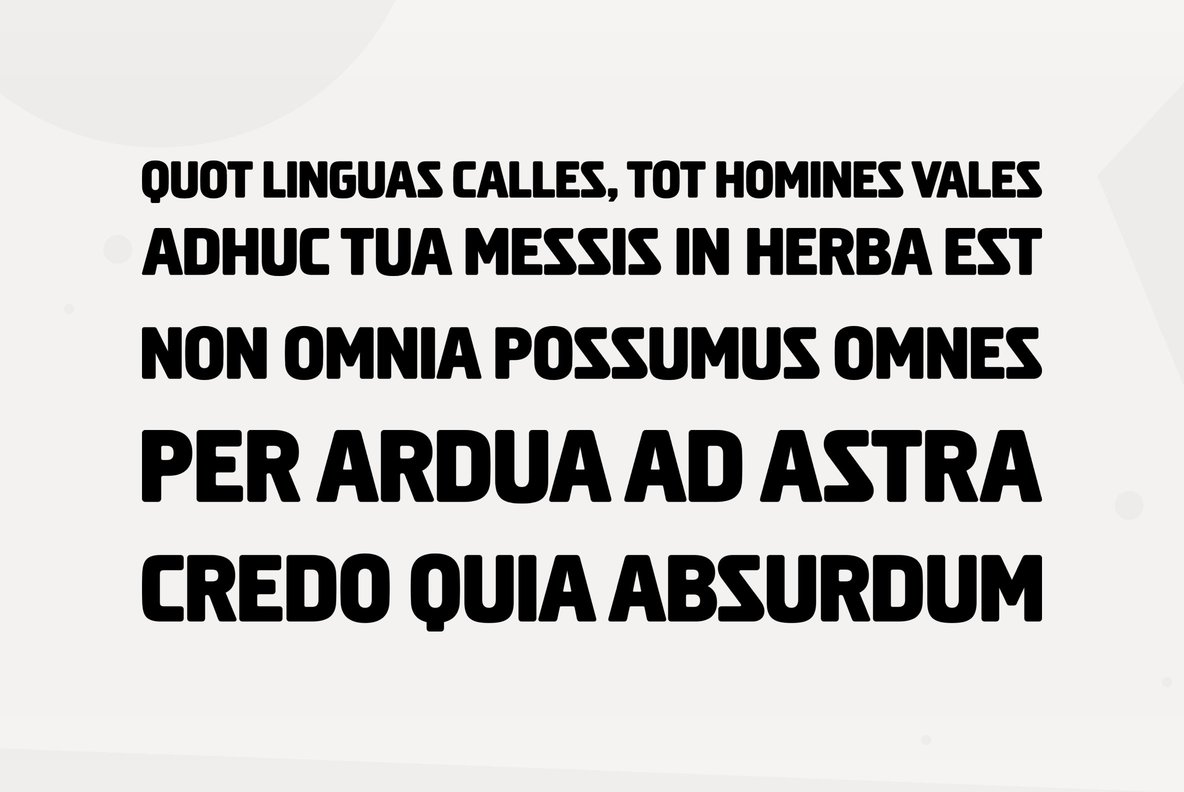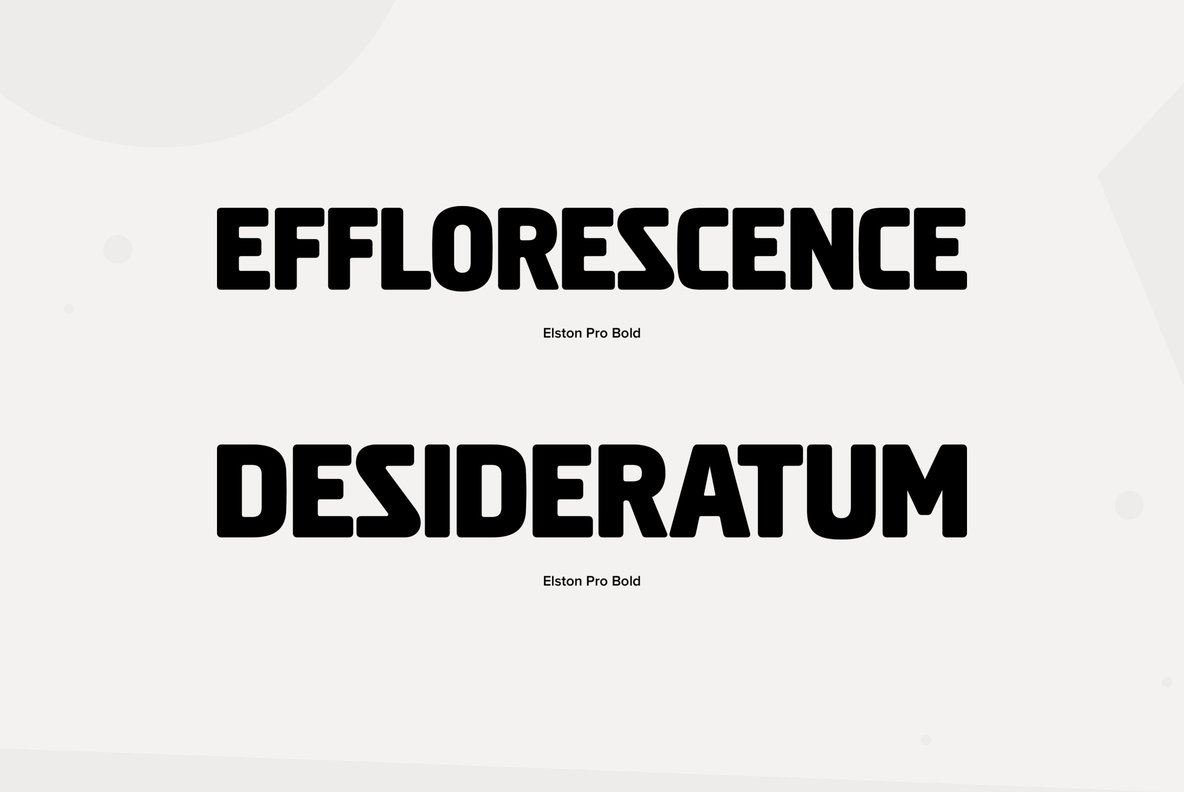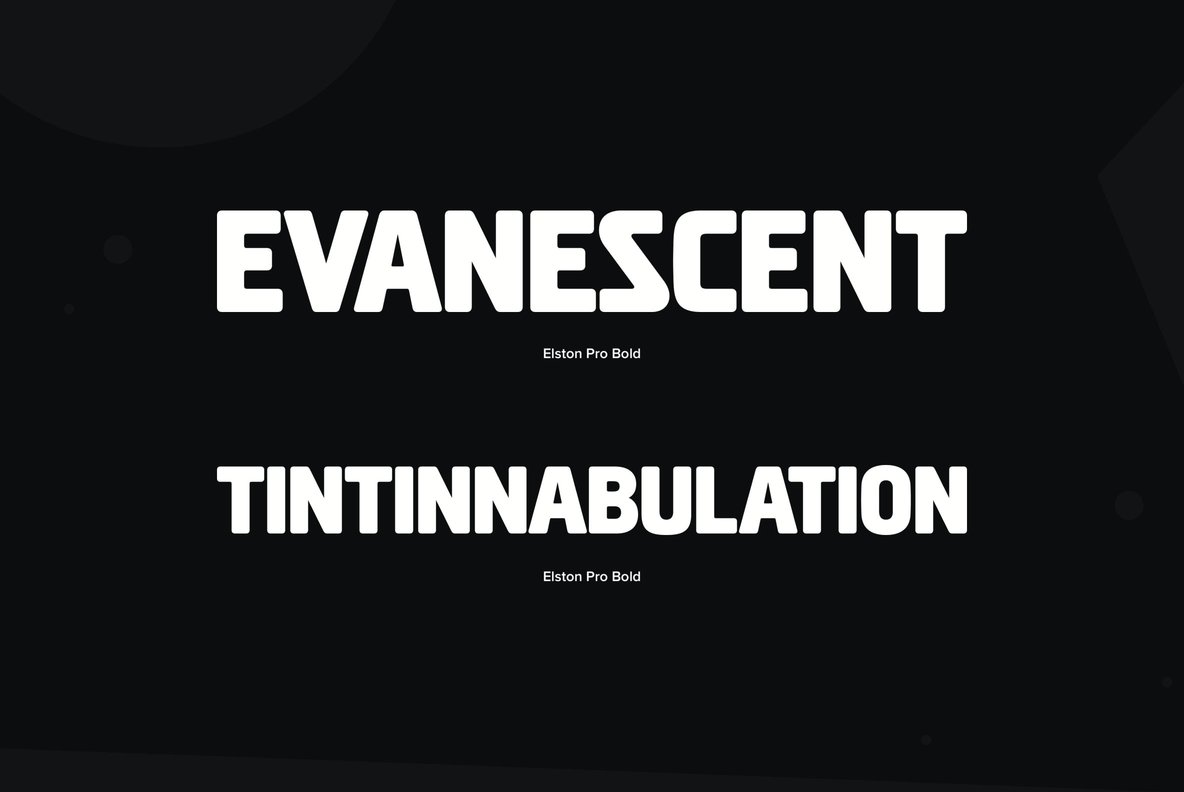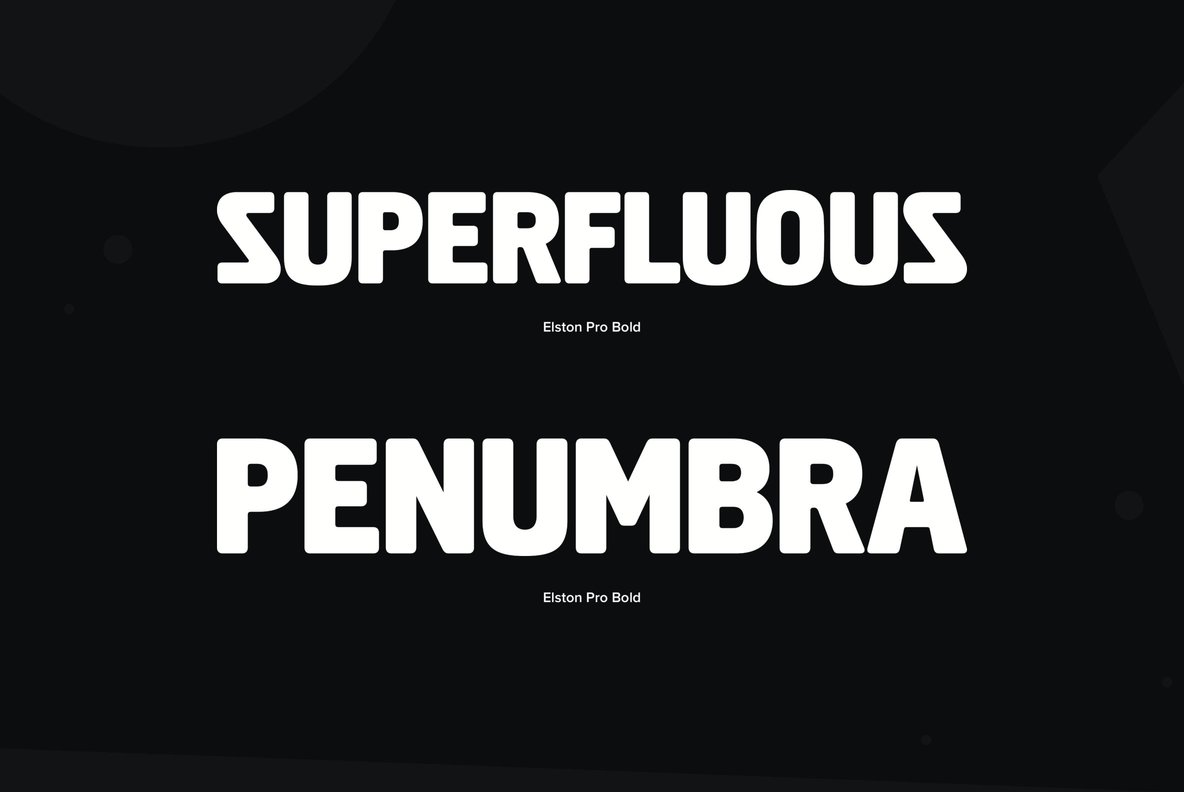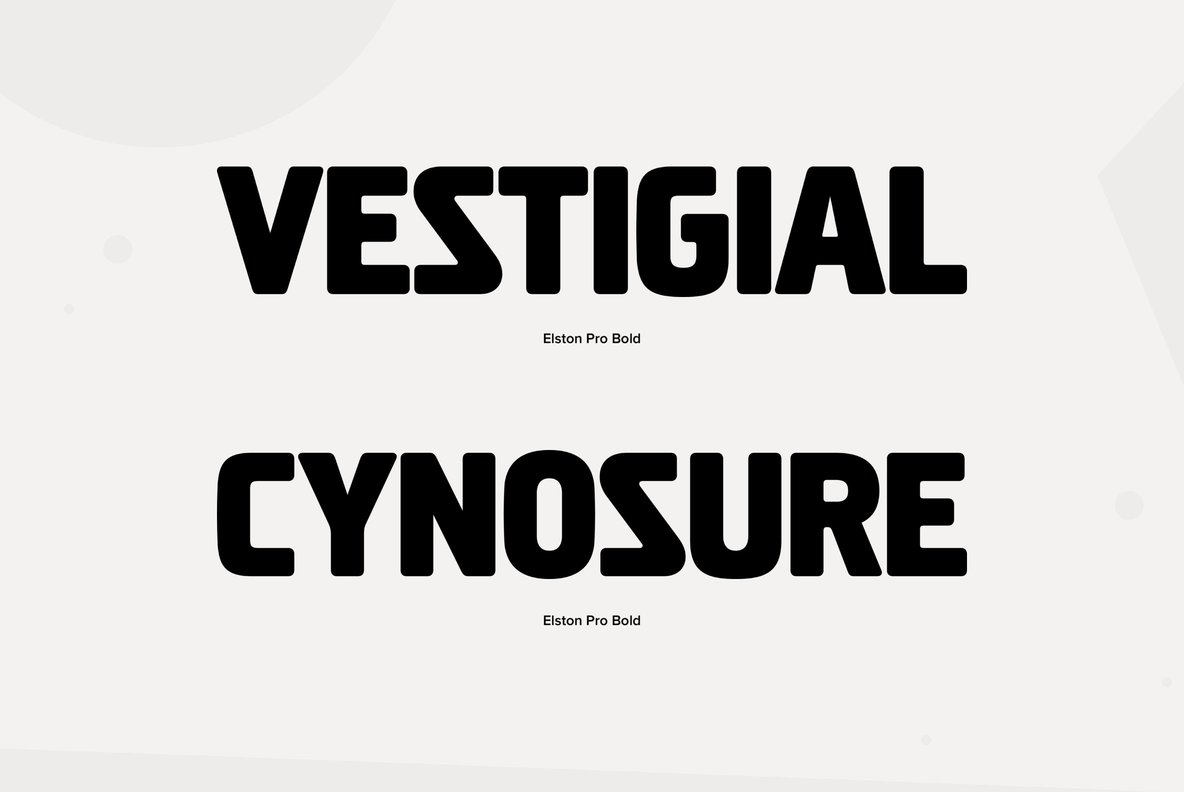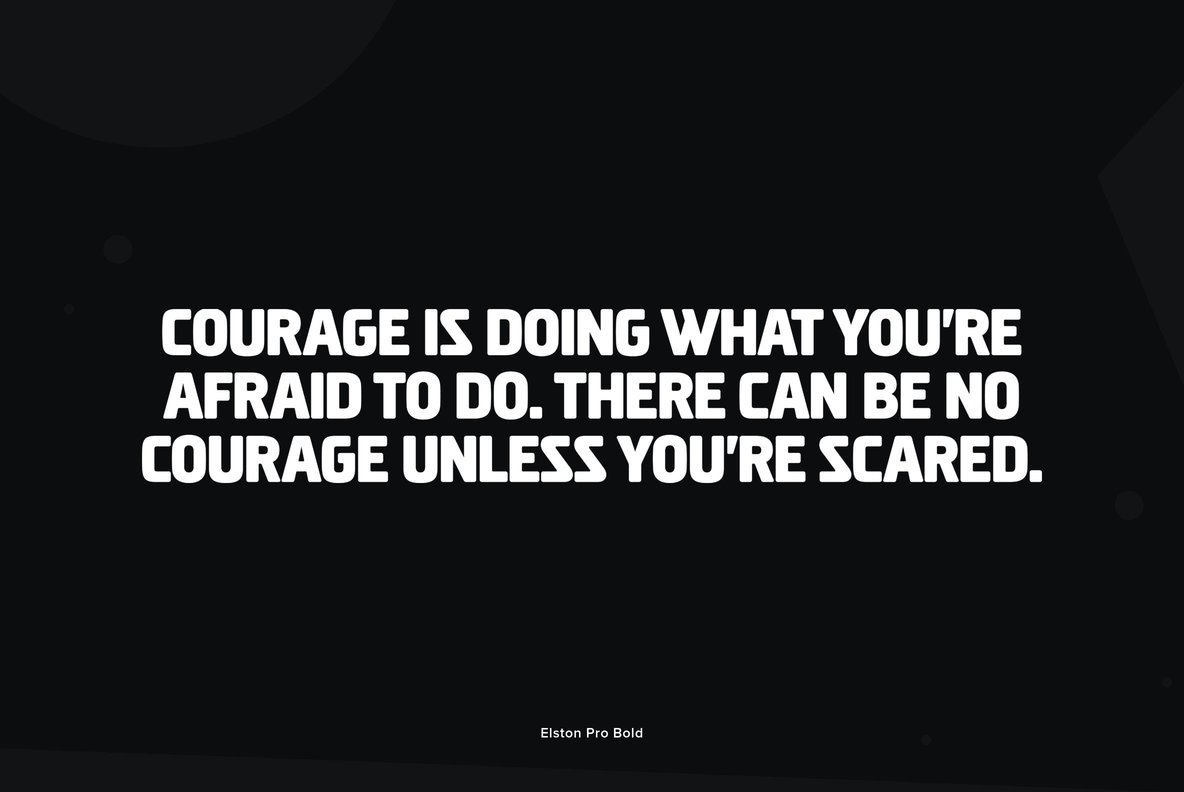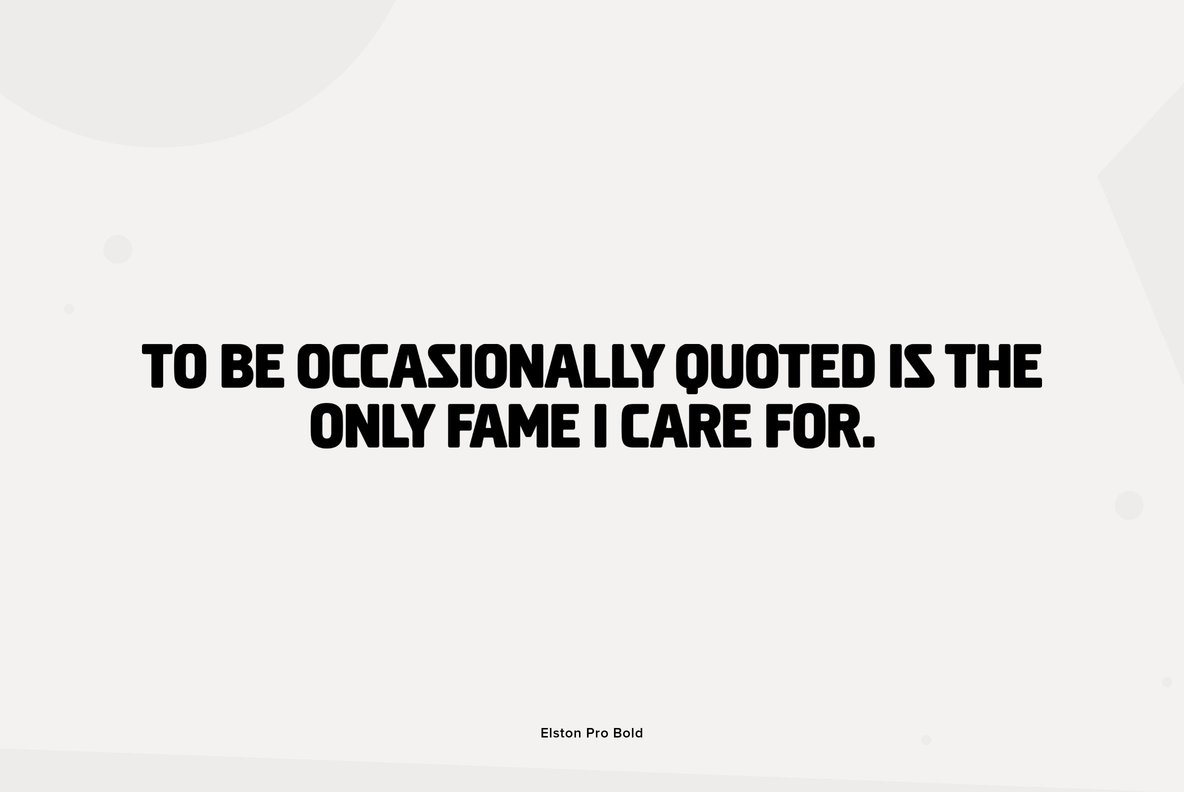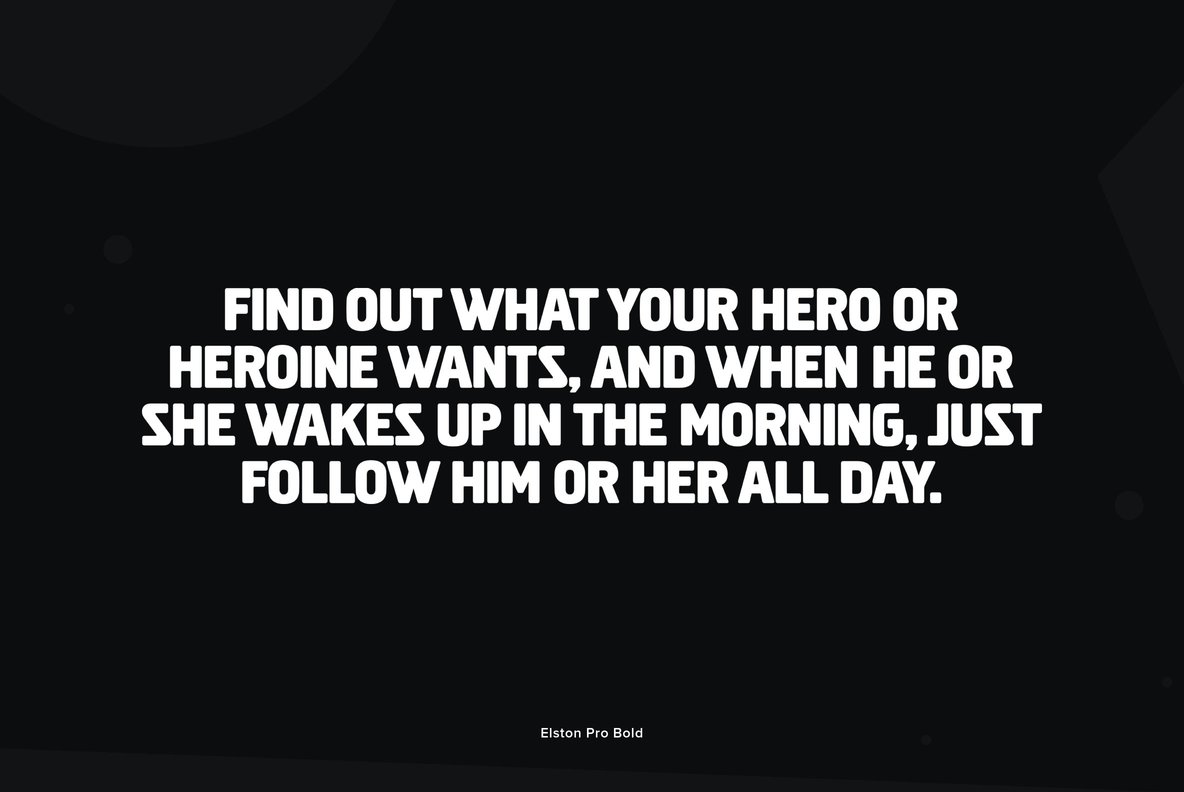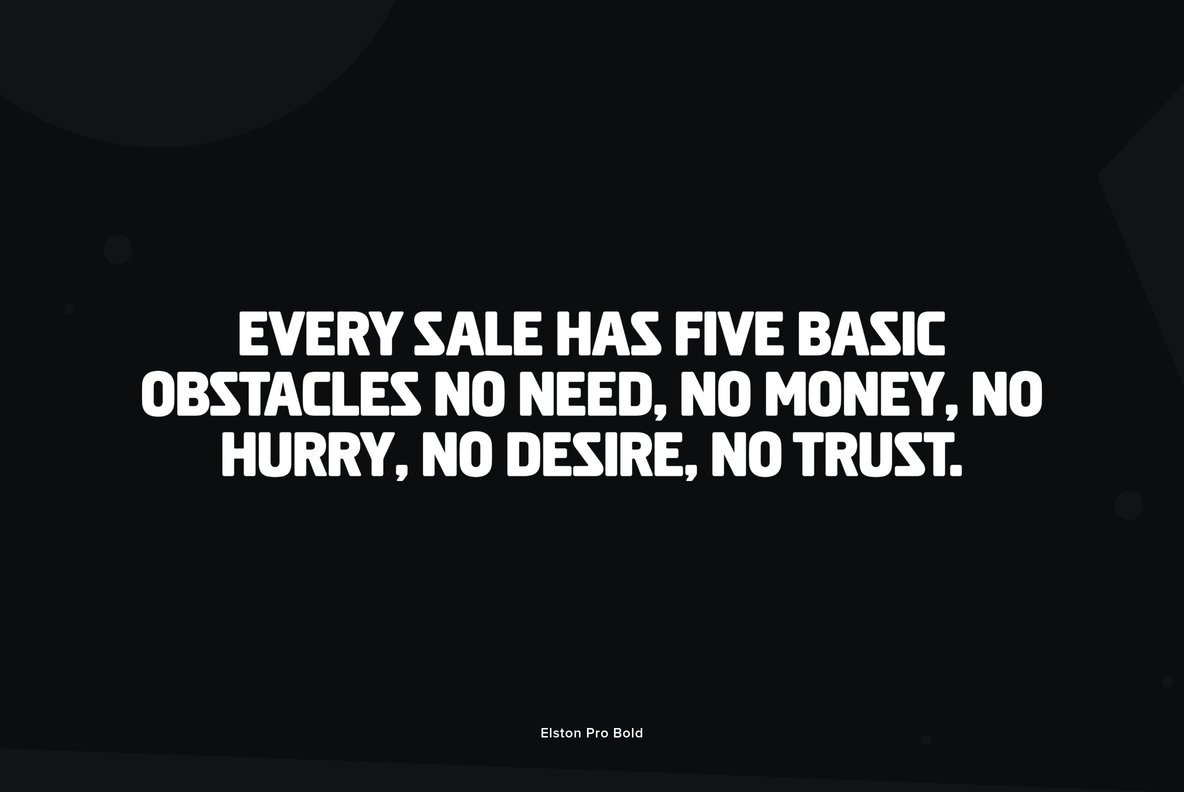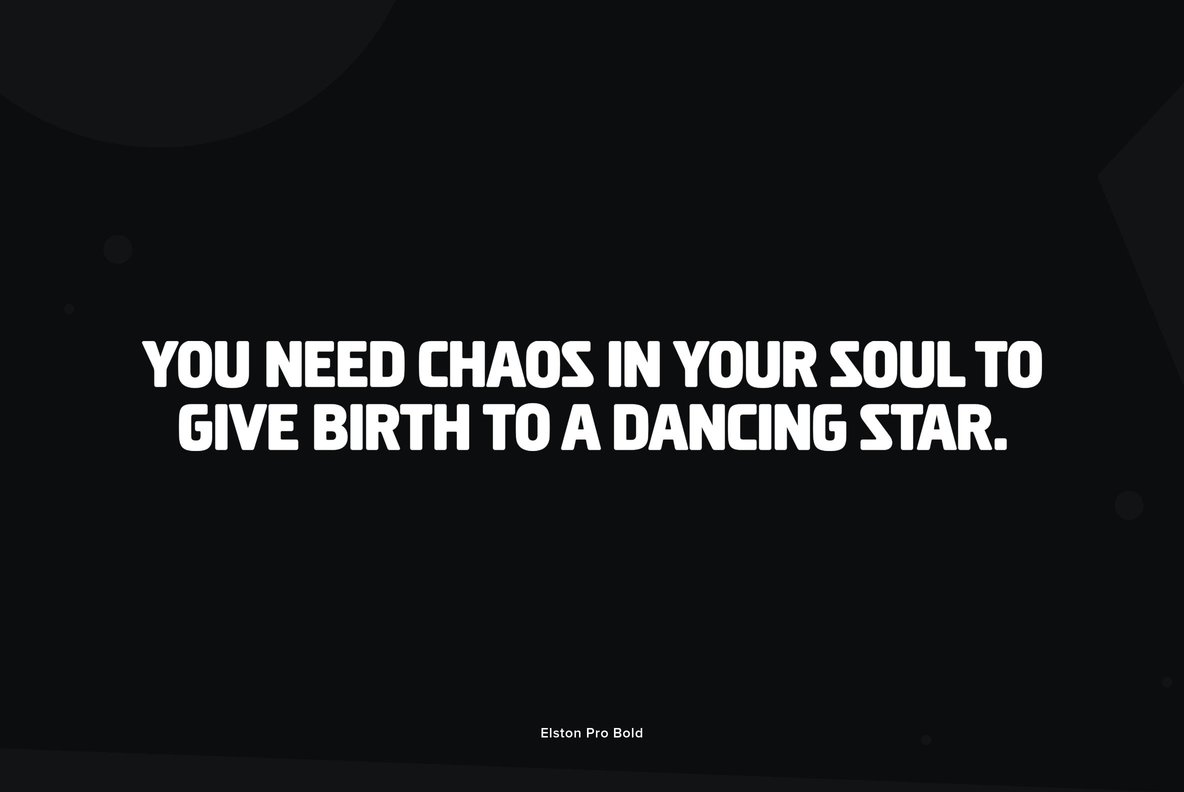
Originally designed by Les Usherwood for a famous European car company, Elston Pro has been completely redrawn and remastered by Steve Jackaman and Ashley Muir.
Originally designed by Les Usherwood for a famous European car company, Elston Pro has been completely redrawn and remastered by Steve Jackaman and Ashley Muir. The new Elston Pro family has been fleshed out with a glyph set that is over 40% larger than the original release, and contains all the high-end features expected in a quality OpenType Pro font.